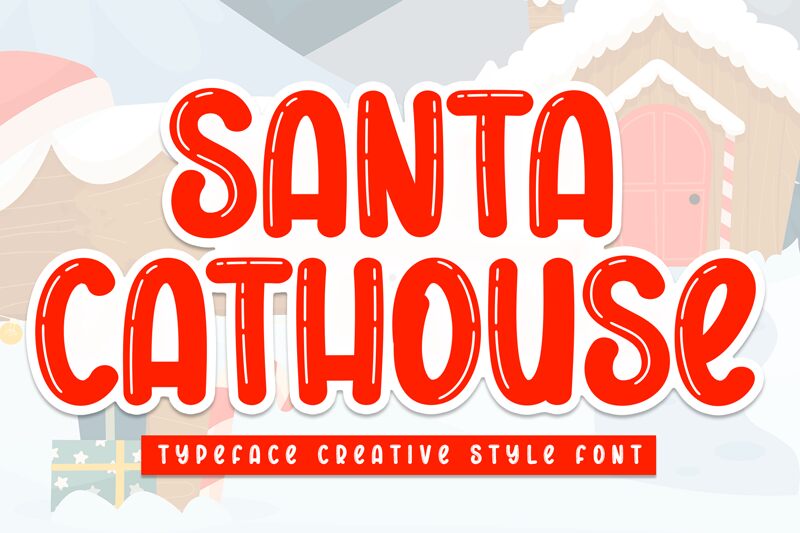
Santa Cathouse font by Scratchones is a free typeface designed with an outstanding cartoonish approach. The cheerful, casual, and playful letterforms make a special experience wherever they are used. Rounded serifs, variety of stroke width, and modern shapes bring a unique twist to this cartoon font.
The font can be used in all sorts of applications such as posters, kids’ book covers, title sequences of cartoons and movies, video game UIs, advertising billboards and banners, YouTube channels, food packaging boxes, apps, websites, or in celebration decoration printables.